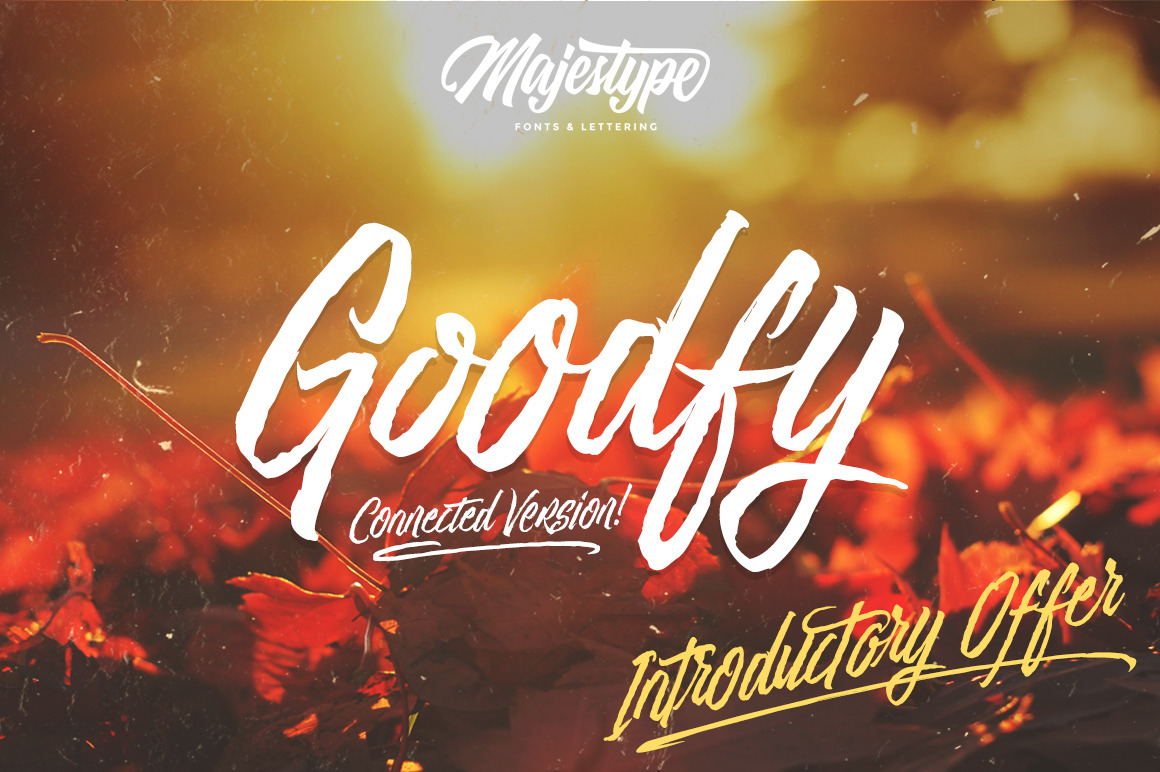
Goodfy Connected v2 - Brush Font
After success with another style Goodfy Reguler http://crtv.mk/hxh0 we are come back with new version of this font "Connected Version". This version have a lot Glyph (+300), fresh & now support OpenType feature that you can see on 3rd Picture.
Like the brother Goodfy Reguler http://crtv.mk/hxh0 Goodfy Connected was created using a brush pen and maintain the original fast lettering. This version is really good for giving a rush feel and handlettering feel in the same time to your work.
Goodfy Connected is designed for vintage design, hand drawn, poster, photography design, t-shirt design, signature & etc.